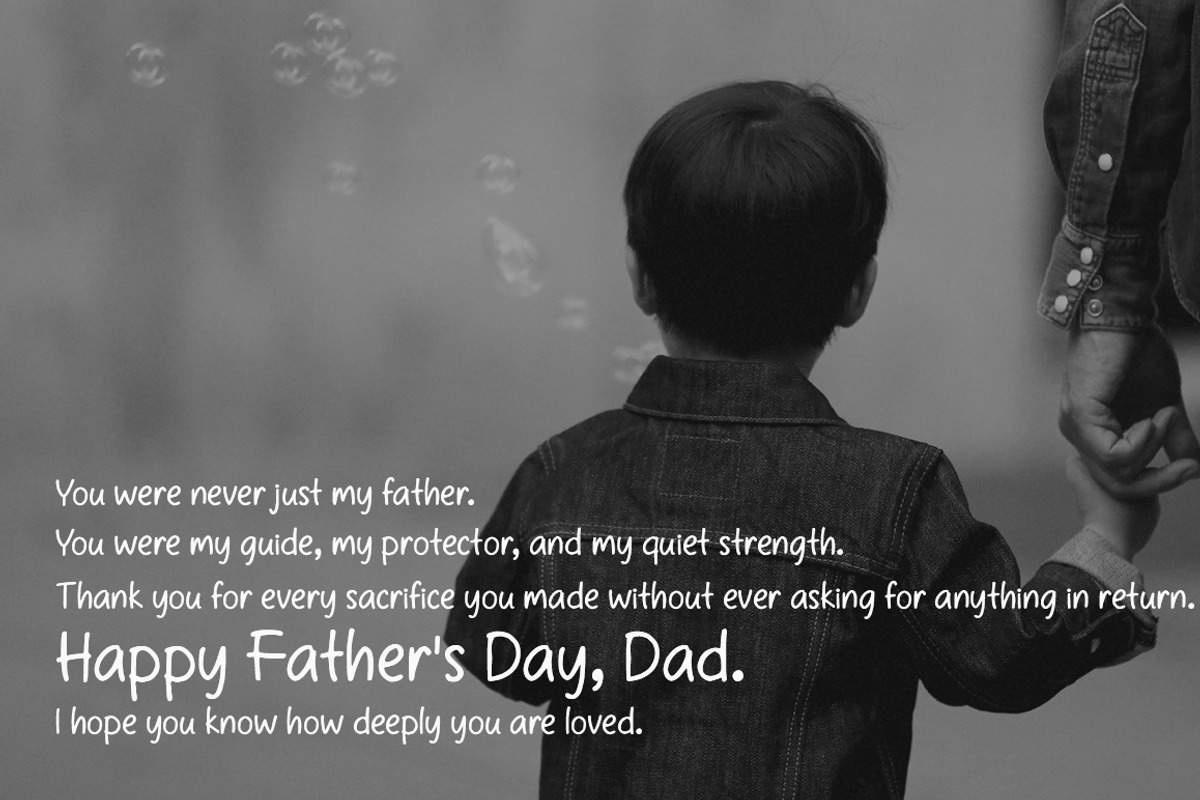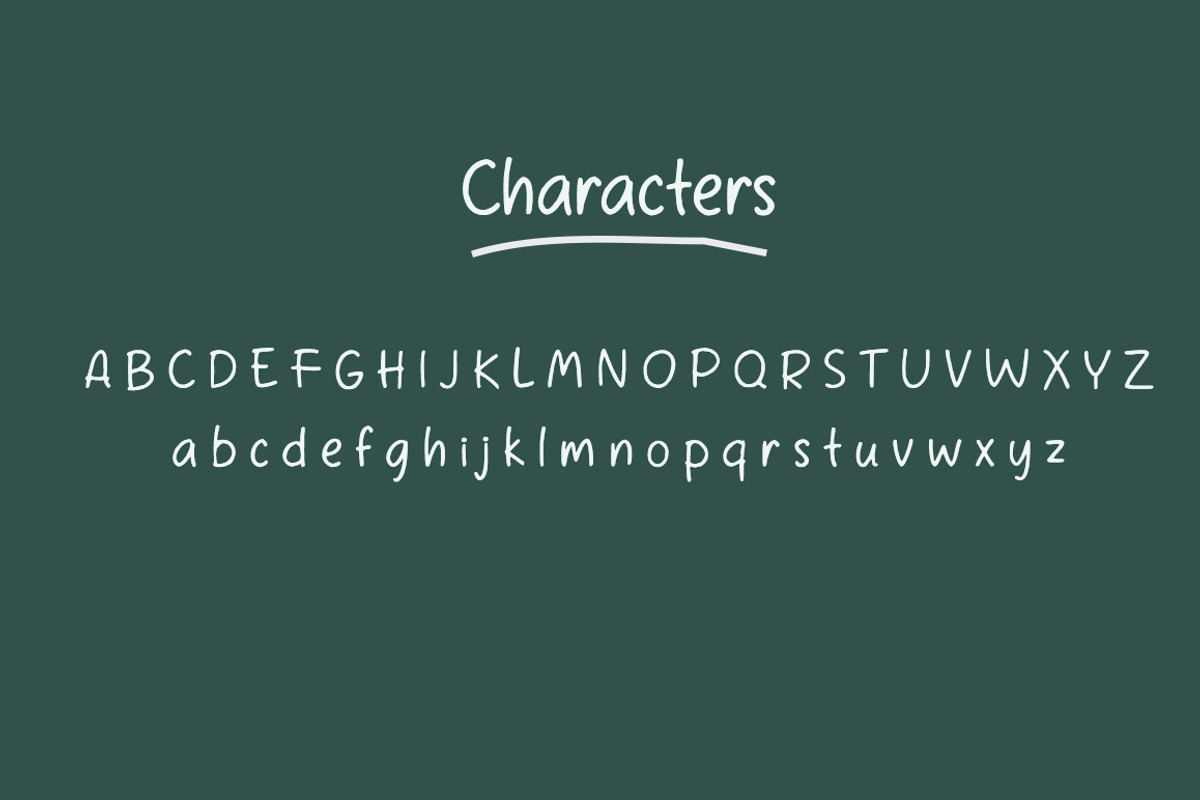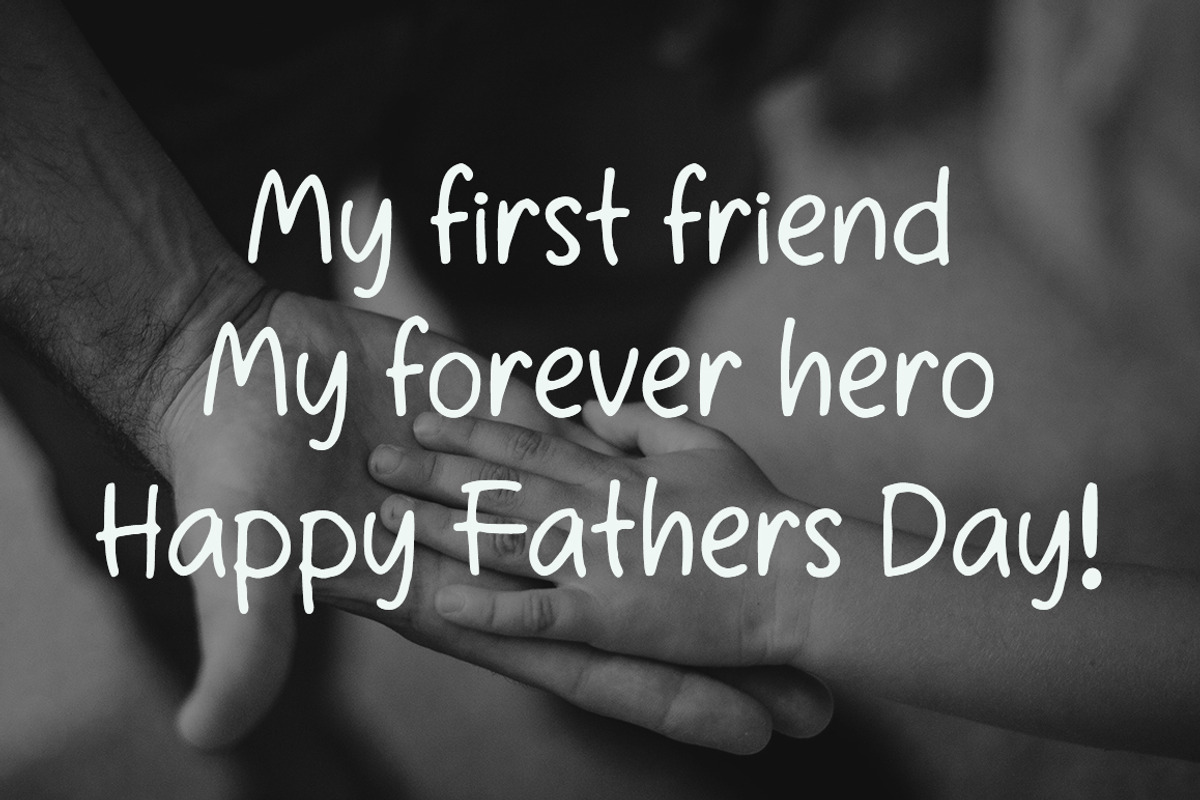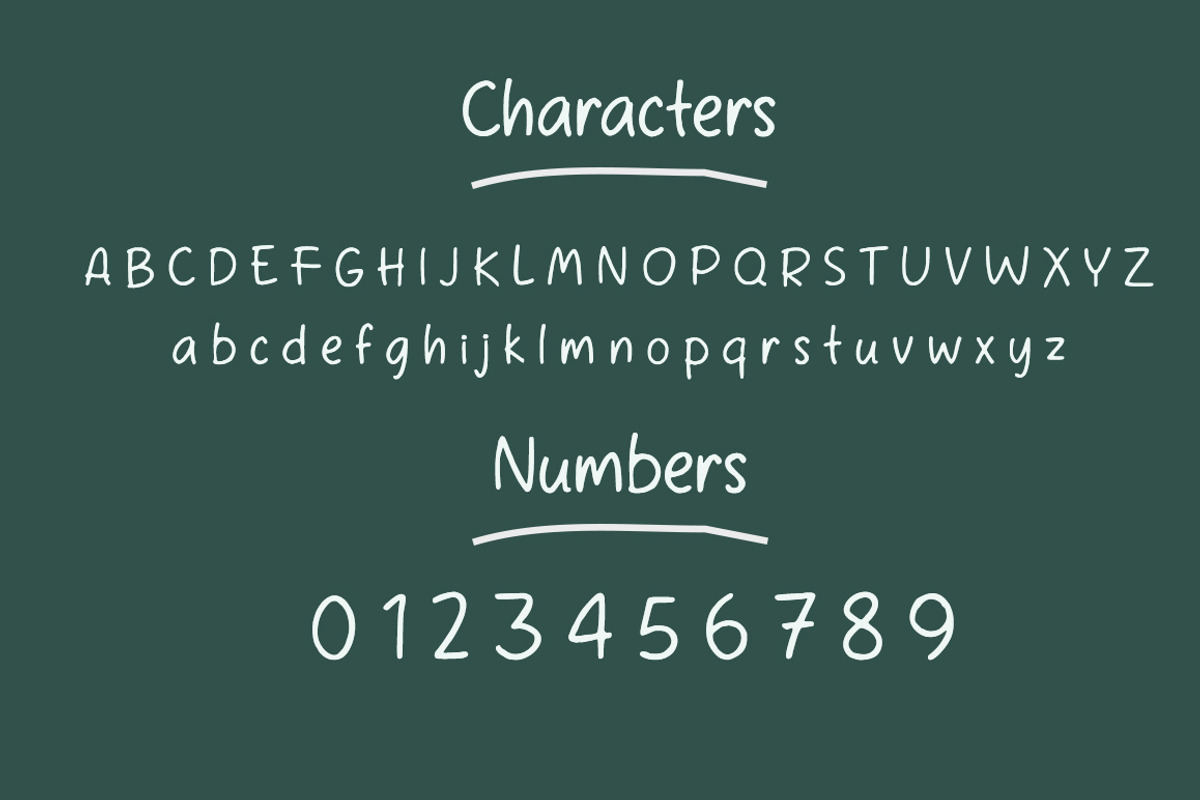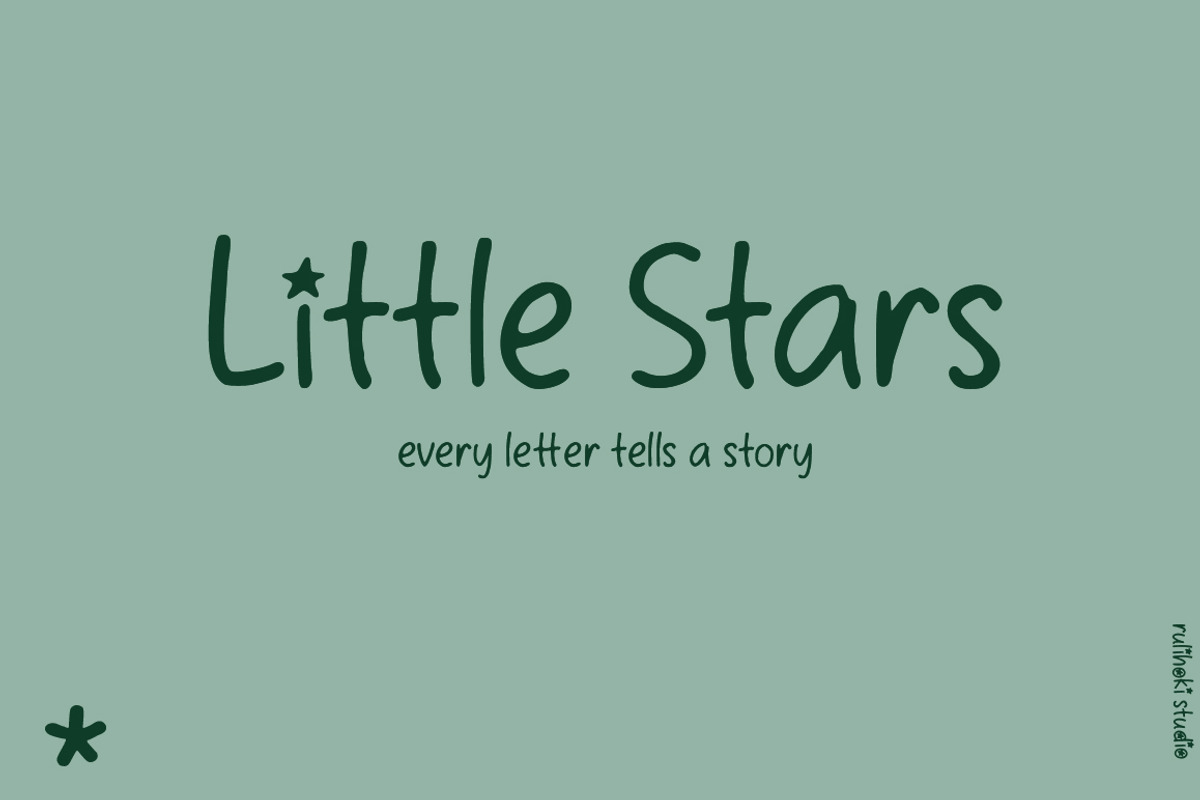
Little Stars
Little Stars, a playful handwritten font that sparkles with imagination and childhood charm. Inspired by the innocent doodles and joyful scribbles of little hands, this font brings a warm, friendly personality to any project.
With its soft curves, uneven lines, and cheerful bounce, Little Star is perfect for designs that need a touch of wonder from children’s books and birthday invites to school posters, toy packaging, and more.
Whether you're creating for kids or just embracing your inner child, Little Star will add that magical, handmade feel your designs are looking for.